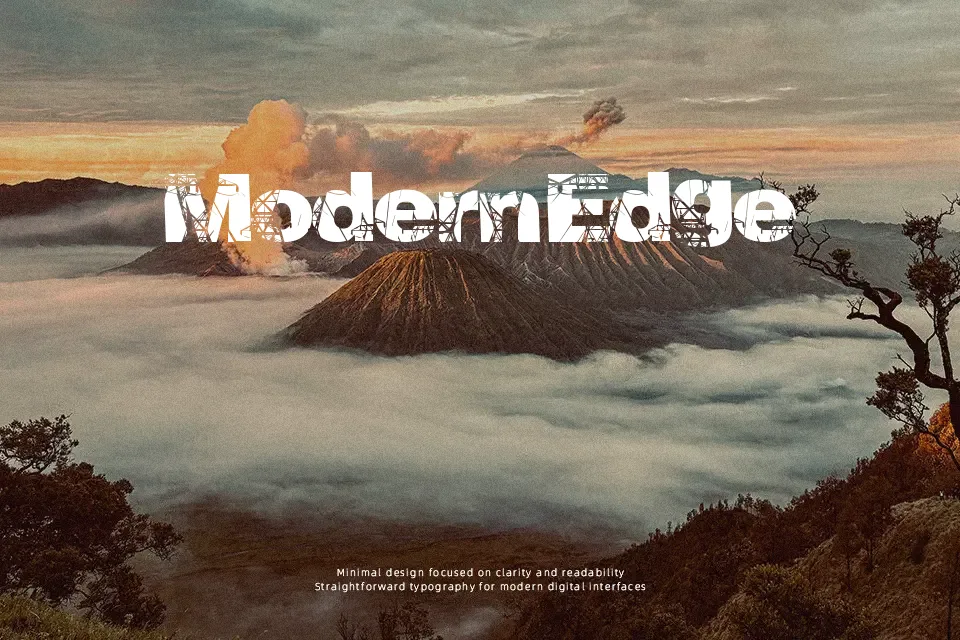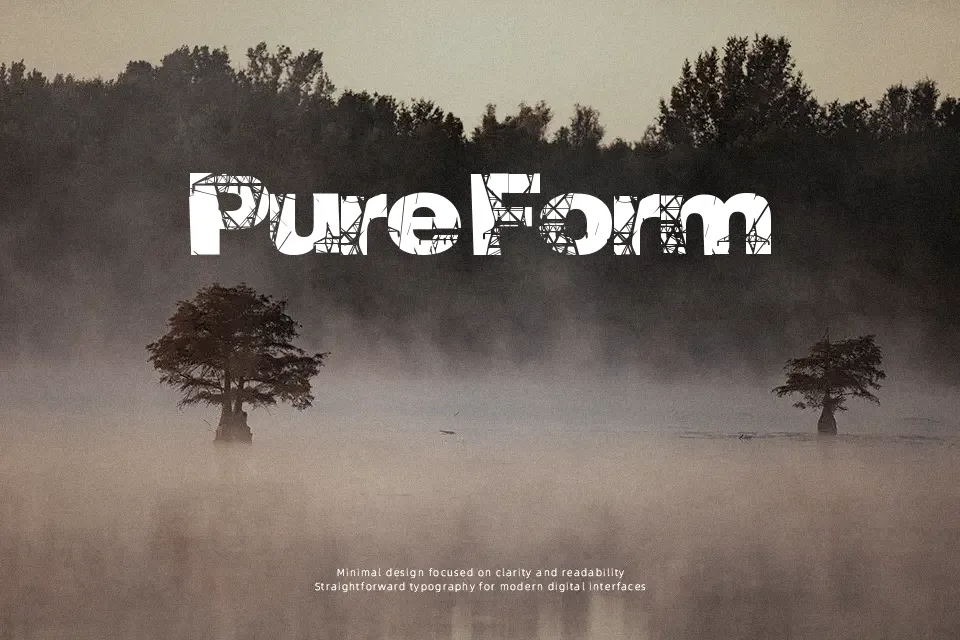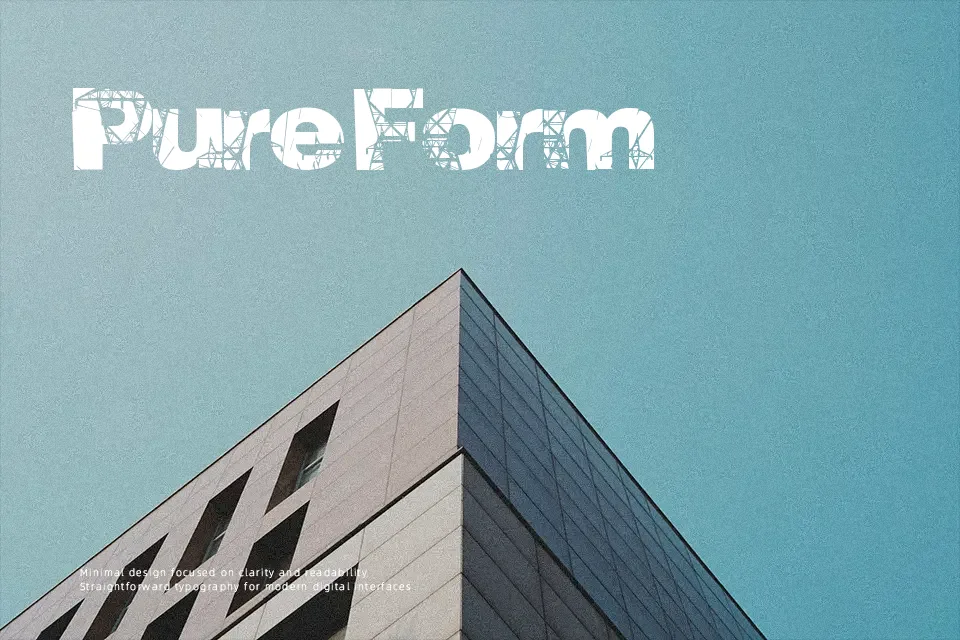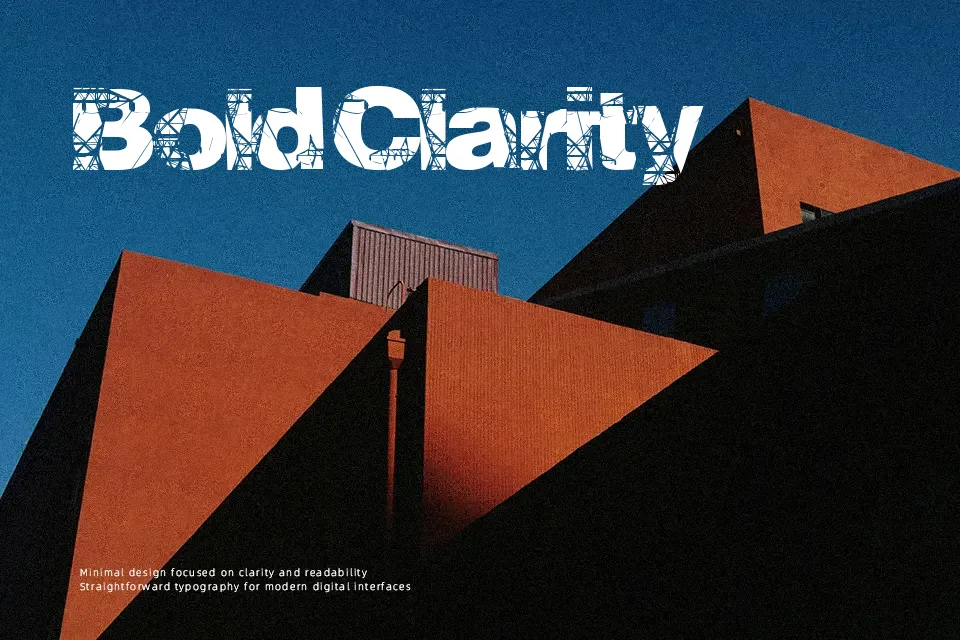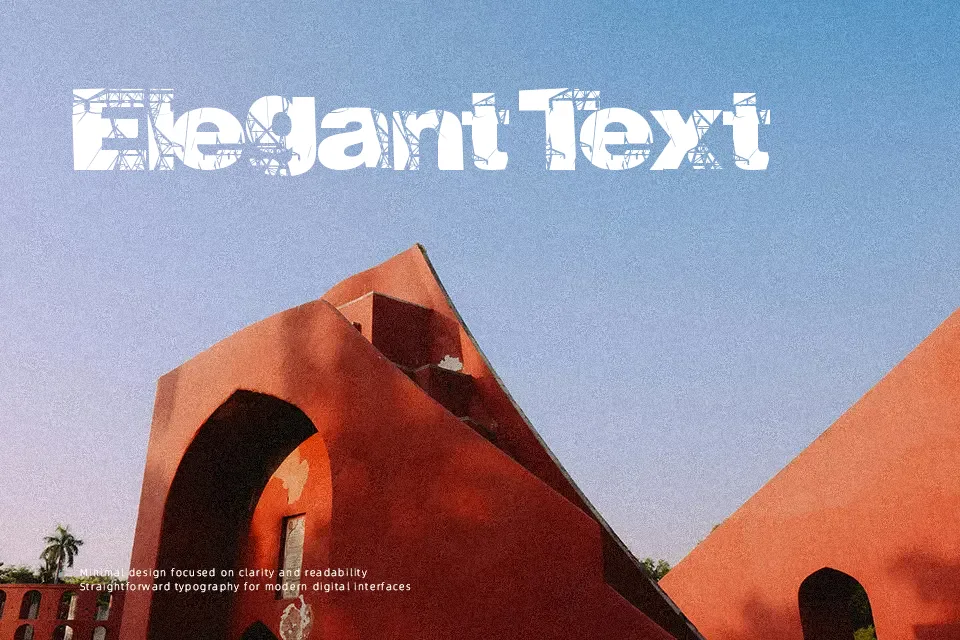
Power Play Font
Power Play Font establishes a dominant visual presence with heavily textured, eroded letterforms and thick stroke construction. The structure features solid, block-like proportions combined with a distressed effect that naturally breaks up the dense areas of each character. Spacing remains relatively tight, helping to maintain cohesion across large words while the rough edges provide a chaotic rhythm. This typeface performs exceptionally well in large display sizes, making it a reliable choice for extreme sports apparel, intense video game graphics, and loud event posters. The heavy texturing significantly reduces clarity at smaller scales, meaning the letterforms are completely unsuitable for continuous reading. The intense distressed details ultimately provide excellent character for short, high-impact display headlines.
extreme sports branding
video game titles
apparel graphics
Perfect for gaming, headline, and packaging, with a bold and decorative style.